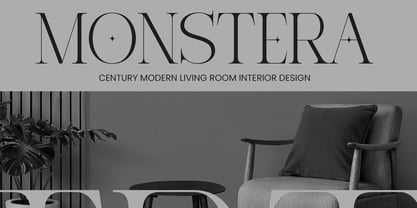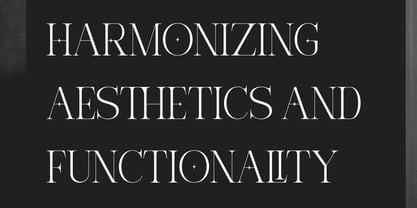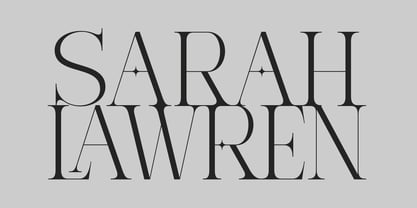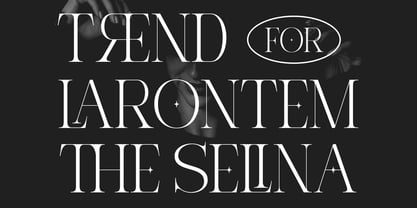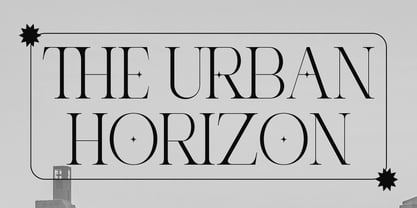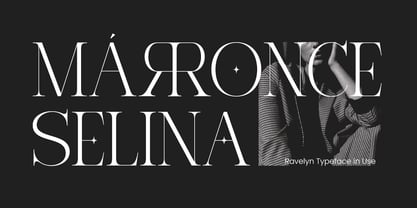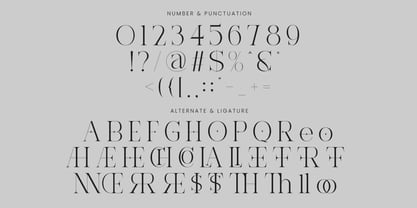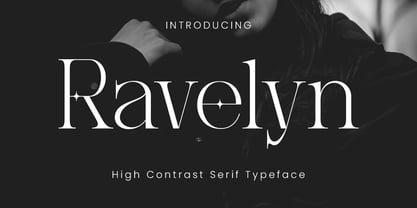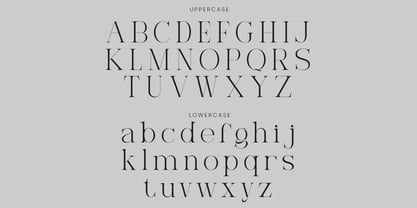
Ravelyn
by Qiubare Studio
The Ravelyn Font Family was designed by Michael Everson and published by Qiubare Studio. Ravelyn contains 1 styles. More about this family
Ravelyn is a high-contrast serif typeface designed for editorial layouts and modern branding. Featuring refined proportions, sharp serifs, and carefully crafted alternates, it creates a clear visual hierarchy for headlines and display use. Ideal for fashion editorials, luxury branding, magazines, and high-end visual identities, Ravelyn performs consistently across both digital and print applications. Ravelyn available with : - Uppercase & Lowercase - Numerals & Punctuation - Alternates & Ligatures - Multilingual Support
Designers: Michael Everson
Foundry: Qiubare Studio